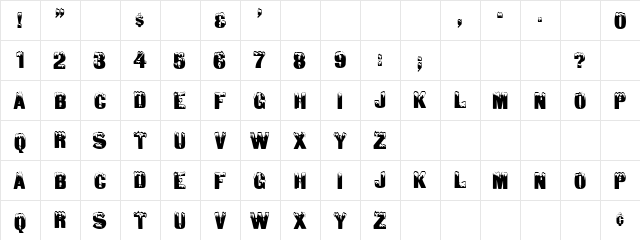
Tone Regular
Design Context for Tone Typeface
Tone is a composed and adaptable typeface that performs quietly and consistently across a wide range of design contexts.